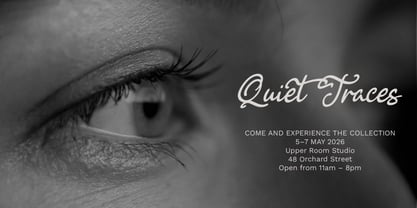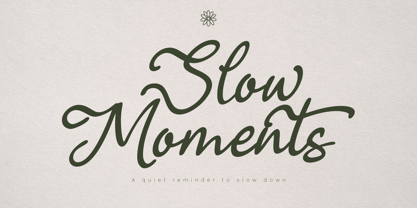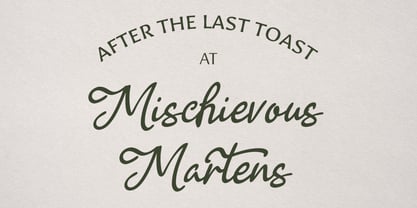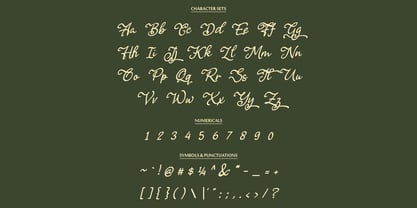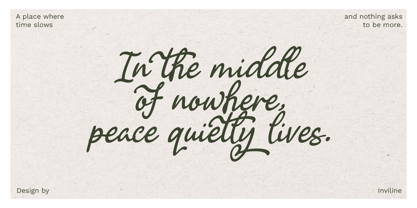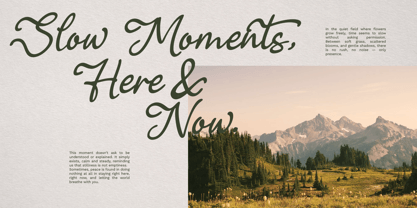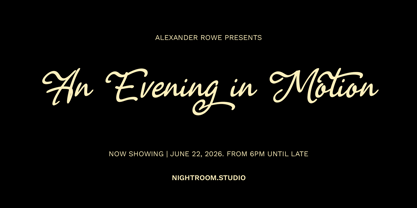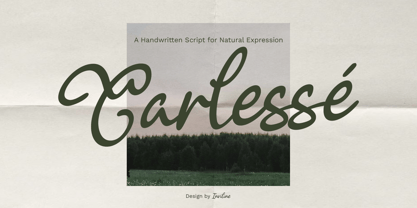
Carlessé Script
von Inviline
Die Schriftfamilie Carlessé Script wurde von Virgiawan Listanto entworfen und von Inviline veröffentlicht. Carlessé Script enthält 1 Stile. Mehr über diese Familie
Carlessé is a graceful handwritten script font that seamlessly blends effortless flow with a touch of modern calmness. Designed to evoke softness and elegance, it captures the rhythm of natural handwriting through smooth curves and thoughtful strokes. This font is perfectly suited for branding, packaging, wedding invitations, slow living quotes, and lifestyle editorials. Carlessé introduces a gentle presence into every design. Its ligature-rich set and multilingual support offer expressive versatility for various creative needs. Whether you're building a serene brand or crafting personal messages, Carlessé adds subtle charm with a truly handwritten soul, making it an ideal choice for projects that require a personal touch and artistic flair.
Designer: Virgiawan Listanto
Foundry: Inviline